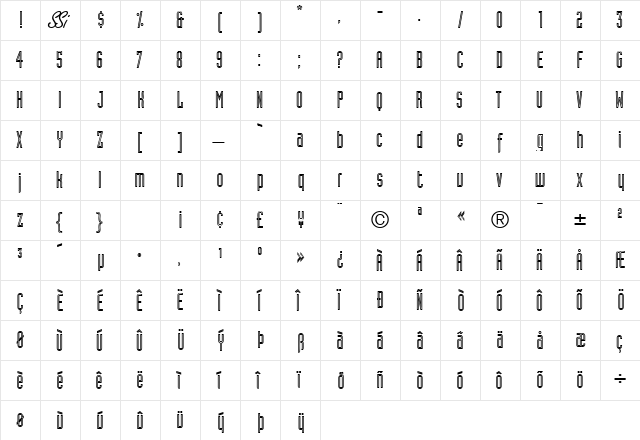
AssemblyOutlineAlternateSSK Regular
Design Context for AssemblyOutlineAlternateSSK Typeface
AssemblyOutlineAlternateSSK brings ornamental detail and strong personality to headlines and identities, where visual impact matters more than quiet functionality.
Font Pairing: Pair with a clean neutral sans-serif for body copy to let AssemblyOutlineAlternateSSK's character lead without overwhelming the composition.
Pro Tip: Treat AssemblyOutlineAlternateSSK as the centrepiece of your typographic hierarchy. One strong heading set in a decorative face can carry an entire layout.